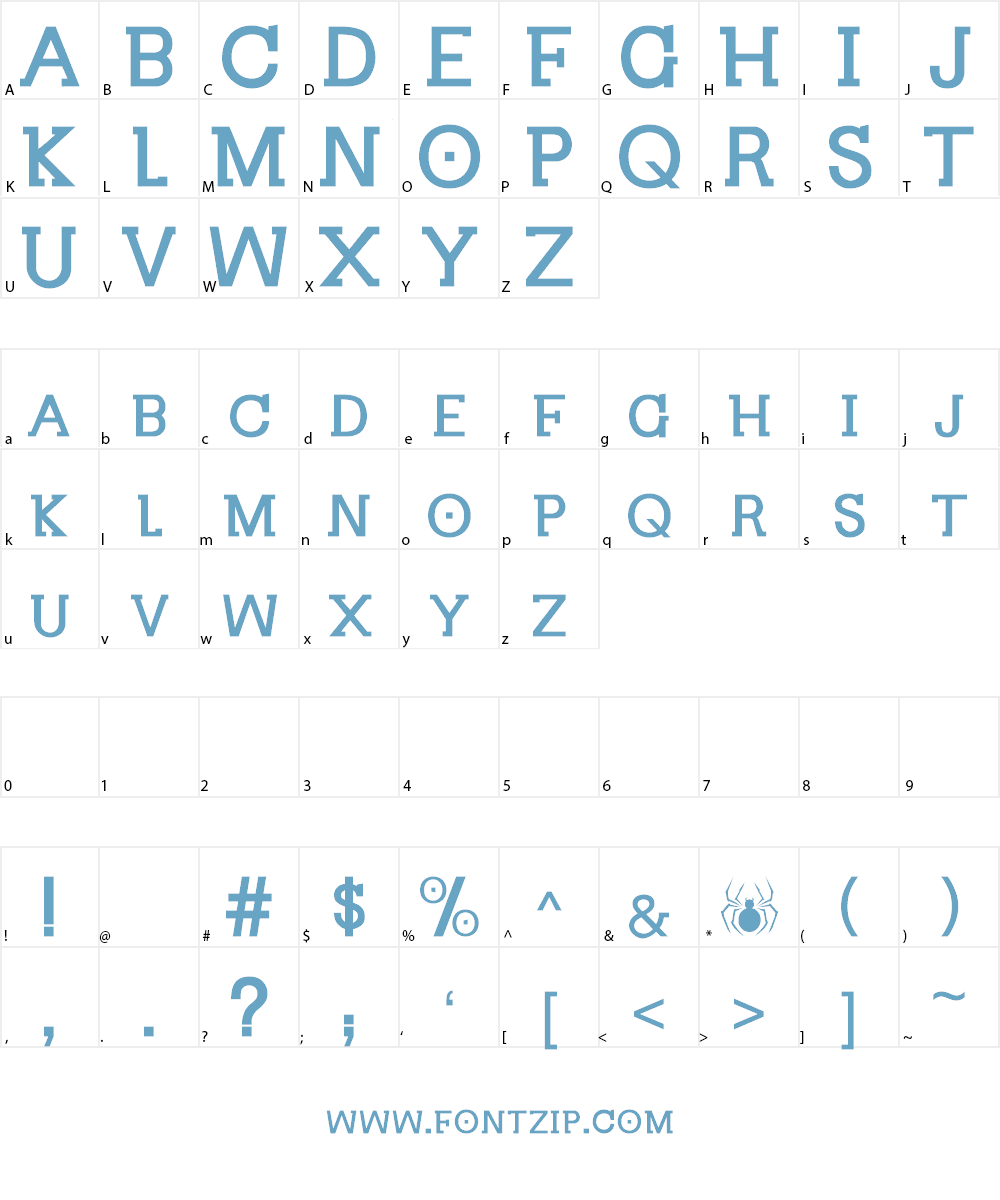
This fan-font has been inspired by the recent movie series about societal divisions that classify citizens based on their aptitudes and values , with similar angled horizontal serifs on the glyphs. NOTE: This version strictly for PERSONAL use only and contains 26 Upper Case Letters and some of the circular faction icons.